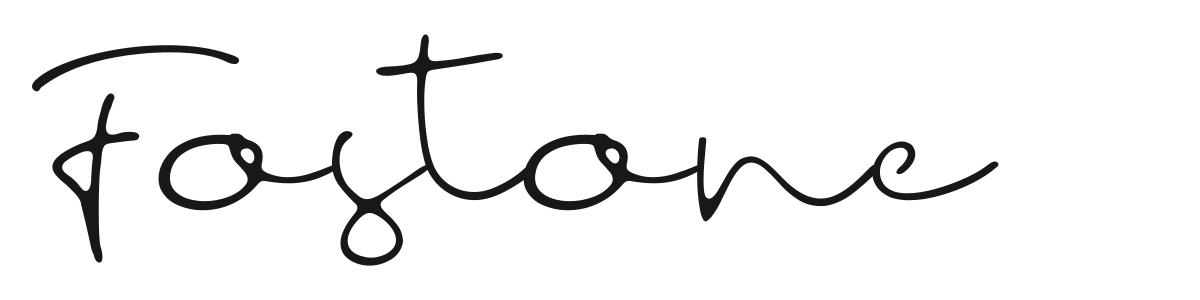
Fostone
Fostone is a flowing connected casual script that mimics relaxed, fine-pen handwriting with continuous linking strokes and an airy rhythm. The thin monoweight lines and loose construction give it a spontaneous, personal feel without veering into grunge territory. It suits branding, packaging, and short display text where an effortless, handcrafted tone is the goal.